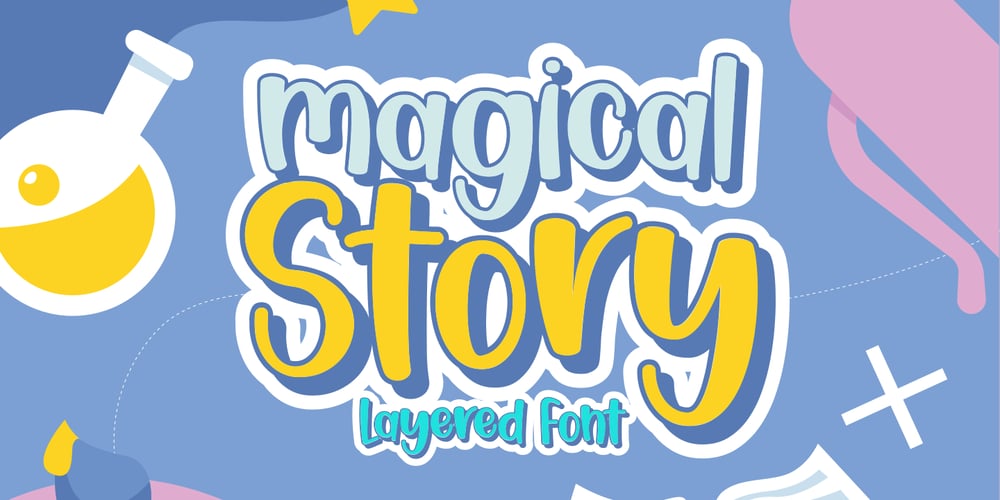
Magical Story
Magical Story font
Magical Story Font Family was designed by Gumilar Pratama Adiatna and published by Gilar Studio. Magical Story contains 3 styles and family package options. Magical Story a Handwritten Display Font With 3 Style (Regular,Outline and Shadow)You Can Mix And Match for Your Awesome Project This fonts is ideal for crafting, branding and decorate your any project. This fonts are perfect for wedding invitation or your blog. Also with their help, you can create a logo or beautiful frame for your home. Or just use for your business, book covers, stationery, marketing, magazines and more.FEATURES :Uppercase & LowercaseNumber & PunctuationMore than 240 of glyphsPUA Encode14 LigaturesAlternate8 OpenType features were detected in the font (aalt dlig frac liga ordn salt sups kern)Support for 67 languages detectedThe alternative characters were divided into several Open Type features can be accessed by using Open Type savvy programs such as Adobe Illustrator, Adobe InDesign, Adobe Photoshop Corel Draw X version, And Microsoft Word. And this Font has given PUA unicode (specially coded fonts). so that all the alternate characters can easily be accessed in full by a craftsman or designer.Check my other Font here https://gilarstudio.com/